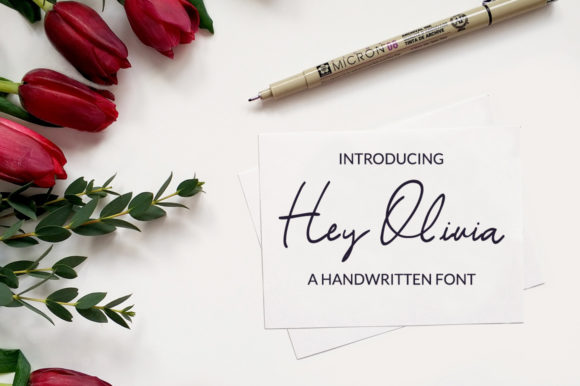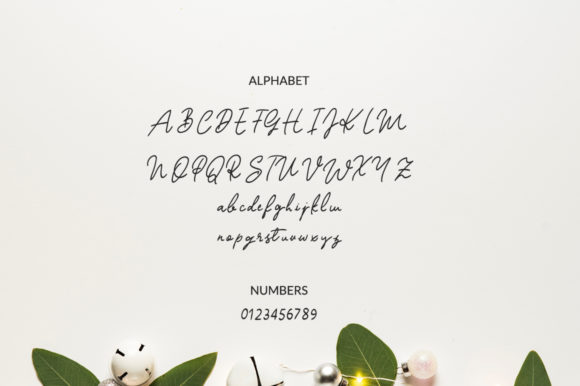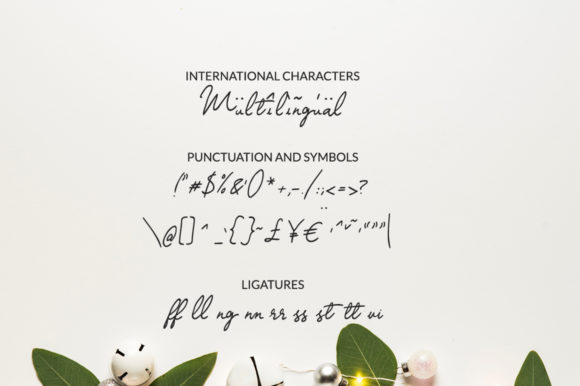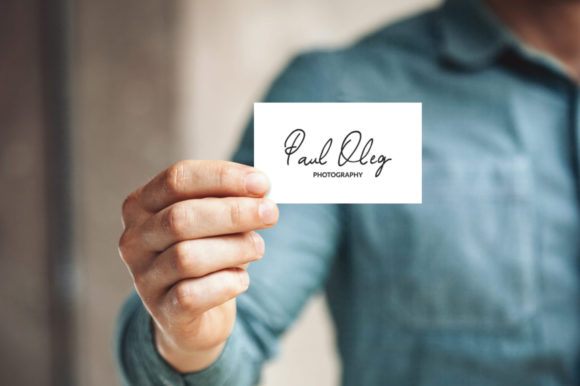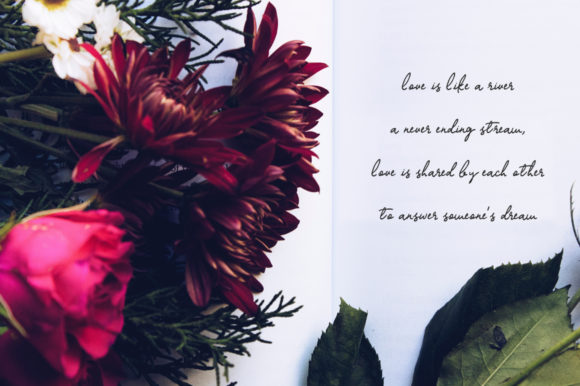
Hey Olivia Script Font
About Hey Olivia Script Font
Introducing “Hey Olivia,” a fresh and meticulously crafted handwritten font designed to elevate your creative projects across various mediums. Whether you’re working on invitations, blogs, logos, stationery, marketing materials, magazines, or book covers, this versatile typeface is tailor-made to enhance your designs and leave a lasting impression.
Hey Olivia stands out with its unique and stylish design, adding a personal touch to your work. Its carefully crafted curves and strokes bring a sense of warmth and authenticity, making it the perfect choice for those who want to convey a genuine and human touch in their visual content.
Imagine receiving an invitation that not only conveys information but also sets the tone with a font that feels like it was personally handwritten. Hey Olivia achieves just that, creating a distinctive and memorable experience for your audience. The fluidity of the handwritten characters adds a touch of elegance, making your invitations stand out and leaving a lasting impression on recipients.
For bloggers, Hey Olivia offers a creative and eye-catching way to present your content. The font’s organic feel can enhance the personality of your blog, creating a more engaging and relatable reading experience for your audience. Whether you’re sharing personal stories, travel adventures, or lifestyle tips, Hey Olivia adds an extra layer of charm to your words.
Logos designed with Hey Olivia instantly communicate a sense of authenticity and creativity. The handcrafted nature of the font ensures that your brand stands out in a sea of generic logos. It’s a subtle yet powerful way to convey that your brand is approachable, unique, and pays attention to the finer details.
In the realm of stationery, Hey Olivia transforms ordinary pieces into works of art. Whether it’s a handwritten note, a stylish letterhead, or personalized business cards, this font adds a touch of sophistication that resonates with recipients. It’s a choice that goes beyond mere communication, turning your stationery into a reflection of your style and personality.
Marketing materials, such as brochures and flyers, come alive with Hey Olivia. The font injects energy and creativity into your promotional content, ensuring that your message is not only seen but also remembered. Its distinctive style captures attention, making your marketing collateral more effective in a crowded landscape.
Magazines and book covers benefit from Hey Olivia’s ability to convey a sense of intimacy. Readers are drawn to the font’s handmade charm, creating a visual experience that goes beyond the text. Whether you’re designing a magazine spread or a book cover, Hey Olivia adds a layer of artistry that complements your content.
In conclusion, Hey Olivia is more than just a font; it’s a creative companion for anyone looking to infuse their projects with a touch of personality and charm. With its carefully crafted design, this handwritten font is set to become a go-to choice for those who value authenticity in their creative endeavors. Elevate your designs, tell your story with style, and let Hey Olivia be the signature touch that sets your work apart.